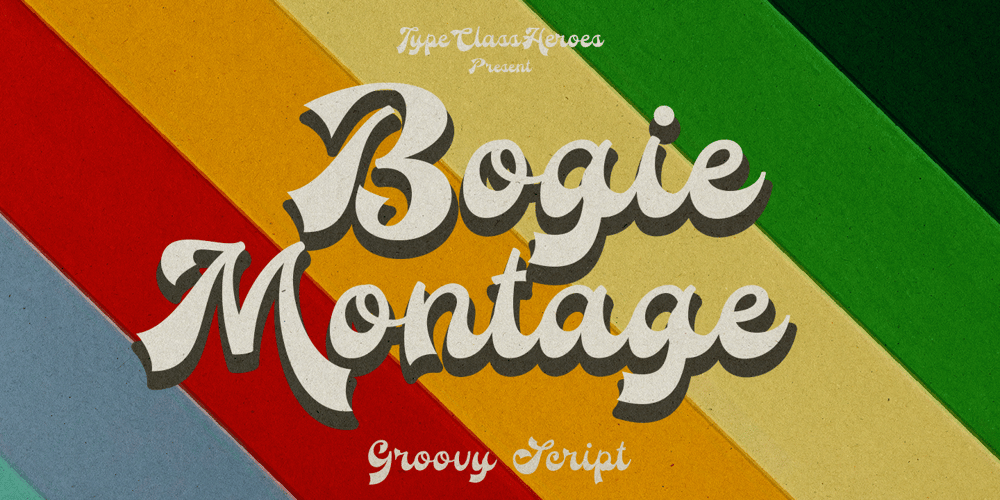
Bogie Montage
Bogie Montage Font Family was designed by Suandana ipandemade and published by TypeClassHeroes. Bogie Montage contains 1 styles and family package options. Bogie Montage is a groovy script come with 60’s style. Groovy and refined you can explore and combine creating rhythm for comfortable reading. This font perfect for any projects, such logotype, stickers, greeting / wedding cards, packaging design, headlines, brand identity, t-shirt, posters, magazines, books, Instagram, websites, and many more.Feature Uppercase & Lowercase Number & Symbol International Glyphs Multilingual support Alternative Ligature Feel free to drop us a message any time and follow my shop for upcoming updates.Hope you enjoy it.